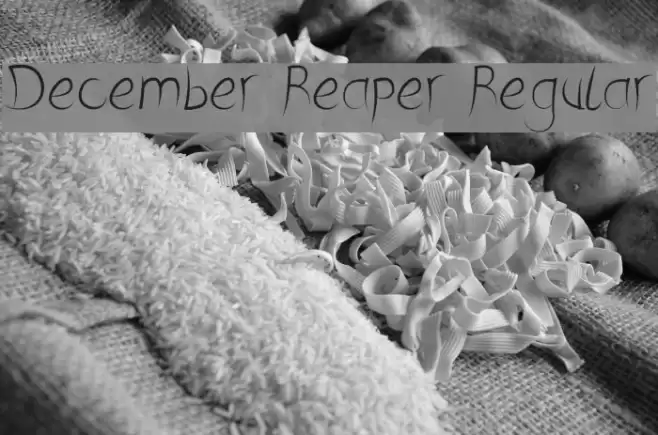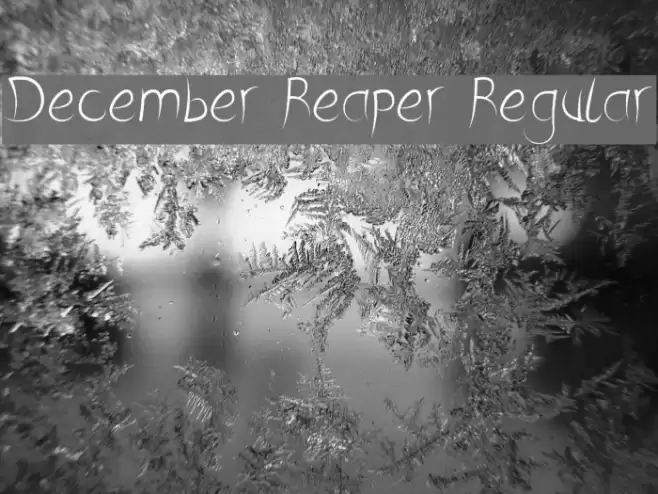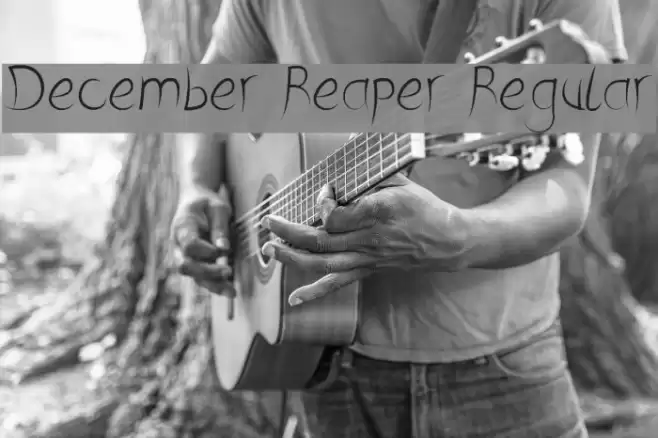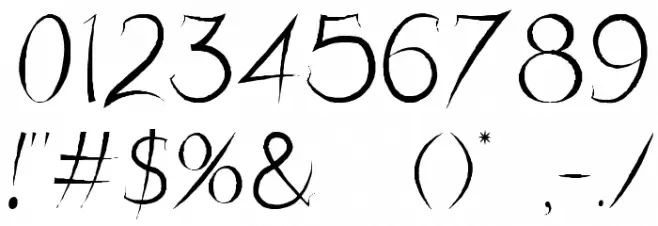
December Reaper Regular Font
December Reaper Regular Description
This font features a unique and artistic design with elongated, sharp serifs and a slightly irregular stroke pattern, giving it a hand-drawn appearance. The letters have a whimsical and slightly eerie quality, with varying stroke thickness that adds to its distinctiveness. The uppercase letters are tall and narrow, while the lowercase letters maintain a more fluid and organic form. Numbers and special characters follow the same stylistic cues, ensuring consistency across all glyphs. This font's playful yet mysterious aesthetic makes it suitable for creative and unconventional projects.
A whimsical, hand-drawn font with sharp serifs and irregular strokes from Handwritten fonts.
- Proposed Projects: Ideal for Halloween-themed designs, fantasy book covers, artistic posters, and unique branding projects.
- Use Case: Headlines, Logos, Artistic projects